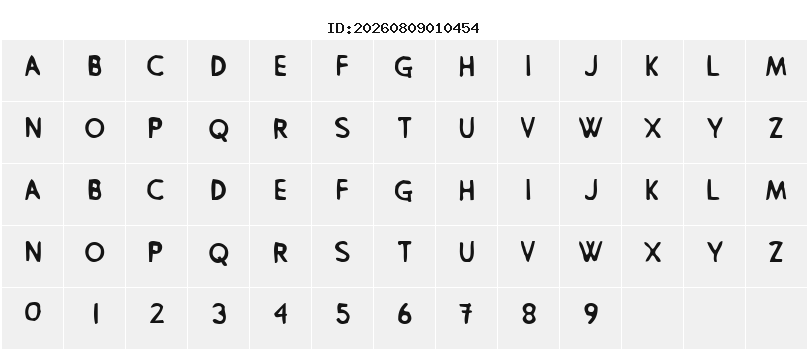
• Font Name: PingPong
PingPong.ttf is a modern, elegant sans-serif font designed for ultimate readability and visual harmony. Perfect for branding, headlines, web design, and print materials.